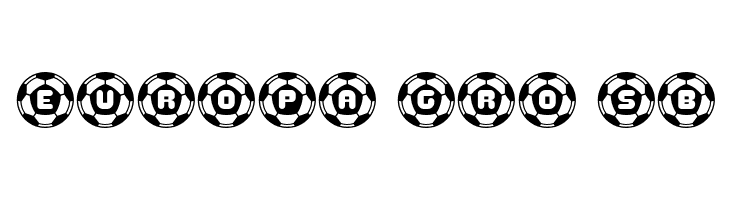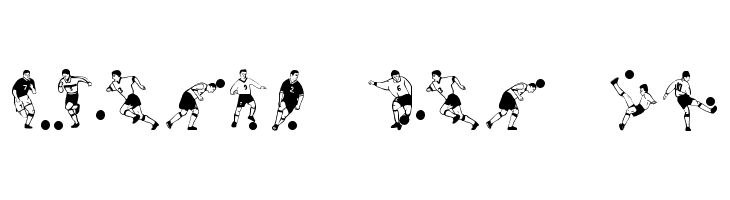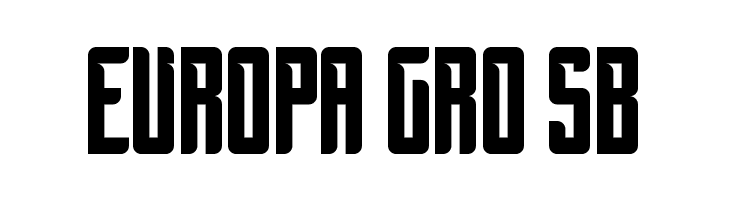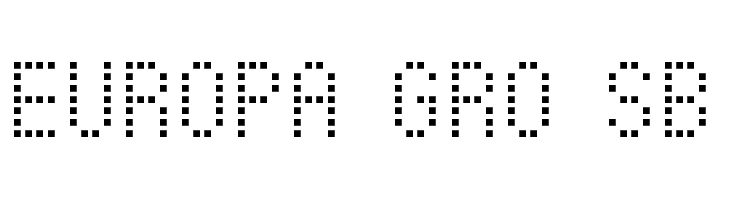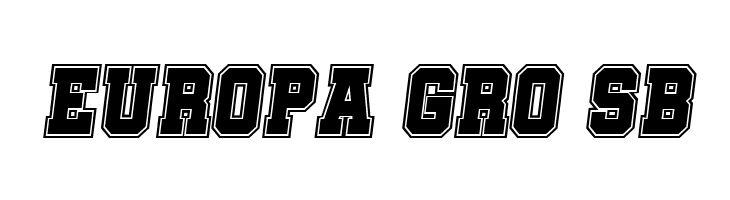
Soccer League Regular Font
A bold, geometric font with a strong, athletic style.
Soccer League Italic Font
Bold, italicized font with a dynamic, sporty style.
Soccer Jersey Regular Font
A bold, block-style font perfect for sports and athletic themes.
Soccer II Font
Silhouette dingbat font with soccer player and ball icons.
Soccer League College Regular Font
A bold, collegiate-style font with outlined, blocky characters.
Soccer League College Italic Font
Bold, outlined collegiate font with an athletic, italicized style.
Soccer-Dance Font
Soccer-themed decorative font with illustrated characters.
2Peas Blocks - Soccer Font
A playful, block-style font with characters enclosed in squares, ideal for fun and informal projects.
Soccer Scoreboard Font
A digital dot matrix font ideal for electronic displays and scoreboards.
SOCCERMAN Font
Bold, geometric uppercase sans-serif font with tight spacing.
Soccer Icons Font
Bold, high-contrast soccer icon set with clear, simplified shapes.
Soccer Team Font
A bold, rounded font with a playful and energetic style.
Soccer Regular Font
A playful font with characters encased in soccer ball designs, perfect for sports themes.
Soccer Casual Font
A playful, bold font with characters enclosed in square shapes, offering a casual and dynamic look.